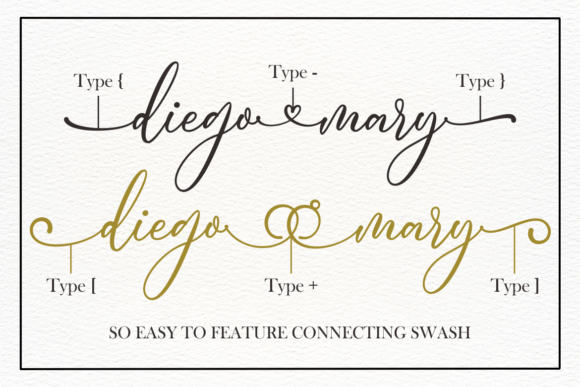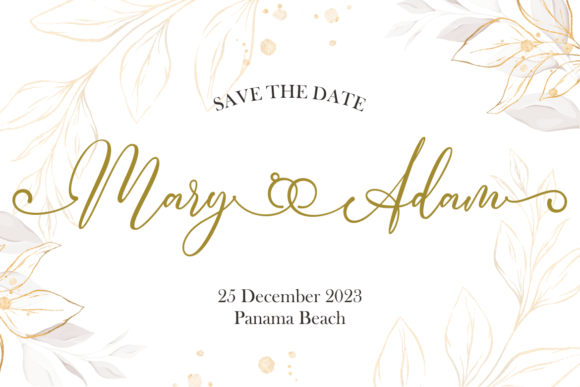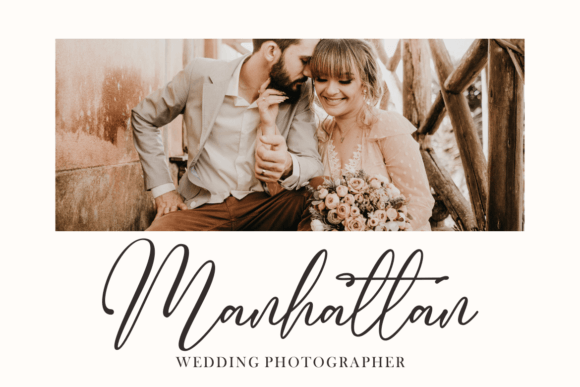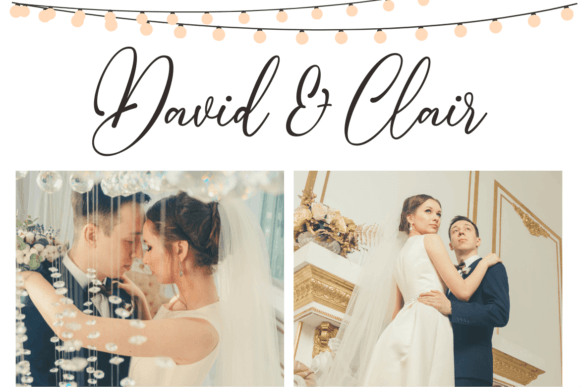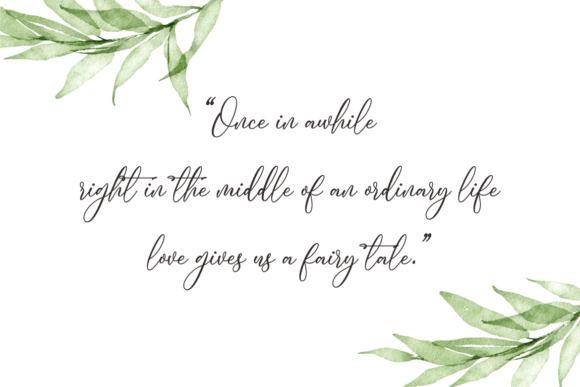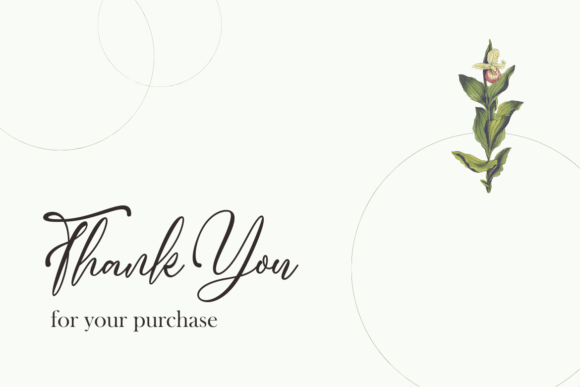
Introducing Diego Mary Font: The Ultimate Choice for Romantic and Modern Designs
In the world of typography, a font can make or break the aesthetic of a design. For designers and crafters looking for a stylish, beautiful, and modern handwritten font, Diego Mary Font is an excellent choice. This versatile font is suitable for a wide range of applications, from greeting cards and wedding cards to headlines and more. In this article, we’ll explore the features and benefits of Diego Mary Font, and why it’s a must-have for anyone looking to add a romantic touch to their creations.
What is Diego Mary Font?
Diego Mary Font is a modern handwritten font designed to bring a touch of elegance and romance to any design. Its stylish and beautiful appearance makes it perfect for a variety of projects, including:
- Greeting cards
- Wedding cards
- Headlines
- Posters
- Logos
Key Features of Diego Mary Font
So, what sets Diego Mary Font apart from other fonts? Here are some of its key features:
- PUA Encoded: Diego Mary Font is PUA (Private Use Area) encoded, which means you can access all the glyphs and swashes with ease. This feature makes it easy to use and customize the font to suit your design needs.
- Modern Handwritten Style: The font boasts a modern handwritten style that’s both stylish and elegant. Its unique appearance is sure to make your designs stand out.
- Romantic Touch: Diego Mary Font is designed to add a romantic touch to your creations. Whether you’re designing a wedding card or a greeting card, this font is sure to impress.
- Highly Versatile: The font is suitable for a wide range of applications, from digital designs to print materials.
Benefits of Using Diego Mary Font
By using Diego Mary Font in your designs, you can enjoy several benefits, including:
- Easier Design Process: With its PUA encoding, you can easily access all the glyphs and swashes, making the design process faster and more efficient.
- Unique and Professional Look: The font’s modern handwritten style gives your designs a unique and professional look that’s sure to impress.
- Time-Saving: Diego Mary Font comes with a range of glyphs and swashes, saving you time and effort in creating custom designs.
Who Can Benefit from Diego Mary Font?
Diego Mary Font is an excellent choice for:
- Graphic Designers: If you’re a graphic designer looking for a stylish and modern font for your designs, Diego Mary Font is an excellent choice.
- Crafters: Crafters who create handmade cards, gift tags, and other paper crafts will love the romantic and elegant appearance of this font.
In conclusion, Diego Mary Font is a stylish, beautiful, and modern handwritten font that’s perfect for designers and crafters looking to add a romantic touch to their creations. With its PUA encoding, modern handwritten style, and highly versatile design, this font is sure to become a favorite in your design arsenal. Whether you’re creating greeting cards, wedding cards, or headlines, Diego Mary Font is an excellent choice. So why wait? Get creative with Diego Mary Font today!